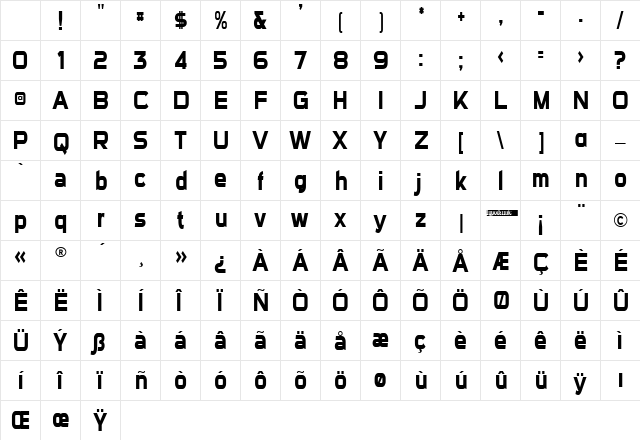
Complete Sui Generis Condensed Regular glyph index. Displaying only characters natively supported by Sui Generis Condensed Regular font.
Sui Generis Condensed is a composed and adaptable typeface that performs quietly and consistently across a wide range of design contexts. Its narrow stance lets it pack a punch even in space-constrained designs.
Pro Tip: Use Sui Generis Condensed in both headline and body roles to test its range before committing to a single application.